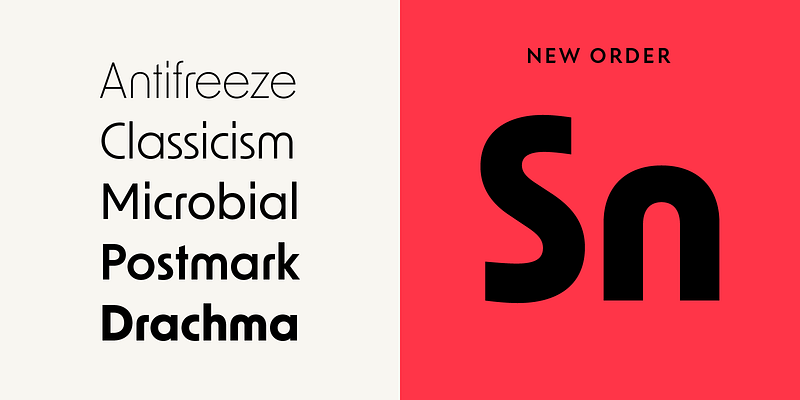
New Order Font Free Download is a modern, geometric sans-serif typeface that combines clean lines with strong, bold shapes. Perfect for contemporary branding, logos, editorial design, and any project that requires a sleek, stylish, and professional look. New Order offers versatility with its highly legible design and contemporary aesthetic, making it suitable for both print and digital media.
The font's minimalist structure and balanced proportions make it ideal for high-impact headlines, signage, and website design. Whether you’re working on corporate identity, advertising, or a creative project, New Order provides clarity and sophistication.